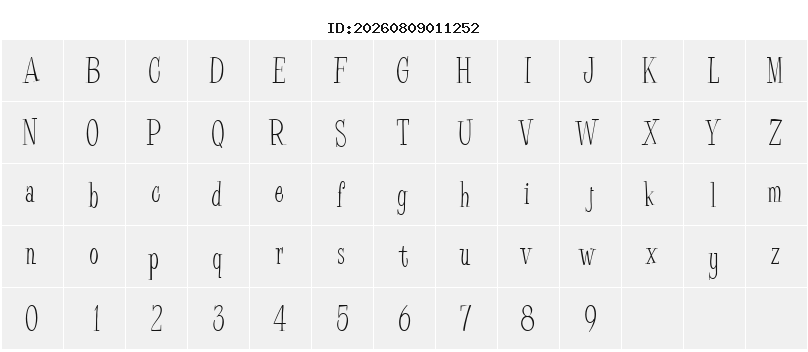
• Font Name: Pine Casual
About Pine Casual.ttf
Pine Casual.ttf is a modern, elegant sans-serif font designed for ultimate readability and visual harmony. Perfect for branding, headlines, web design, and print materials.